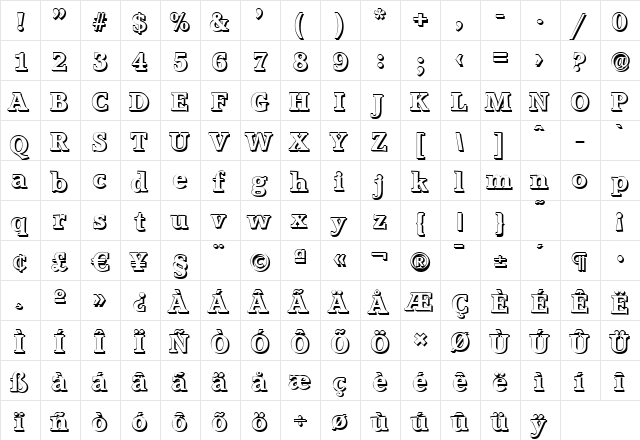
MichaelBeckerShadow-ExtraBold Normal
Design Context for MichaelBeckerShadow-ExtraBold Typeface
MichaelBeckerShadow-ExtraBold brings ornamental detail and strong personality to headlines and identities, where visual impact matters more than quiet functionality. Its bold stroke weight gives it real presence on the page.
Font Pairing: Pair with a clean neutral sans-serif for body copy to let MichaelBeckerShadow-ExtraBold's character lead without overwhelming the composition.
Pro Tip: Treat MichaelBeckerShadow-ExtraBold as the centrepiece of your typographic hierarchy. One strong heading set in a decorative face can carry an entire layout.